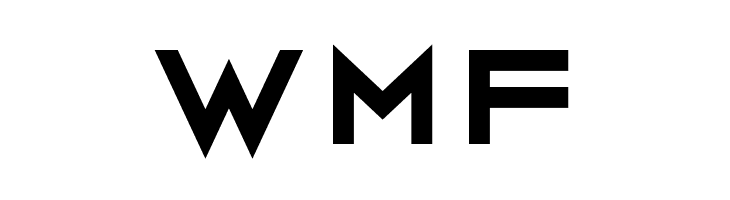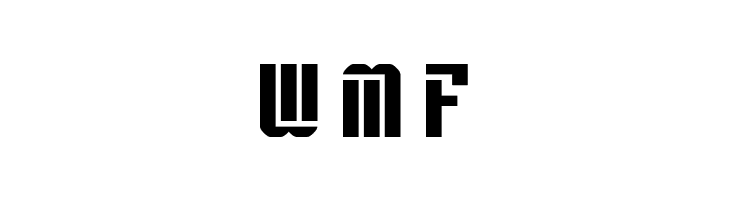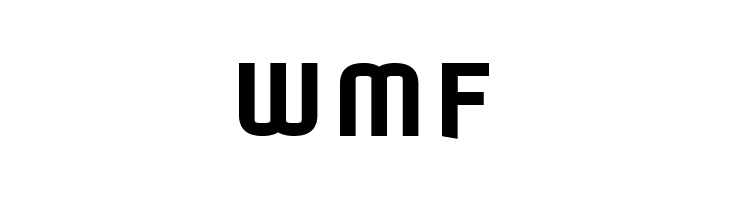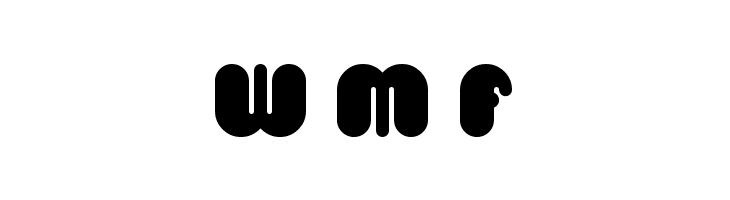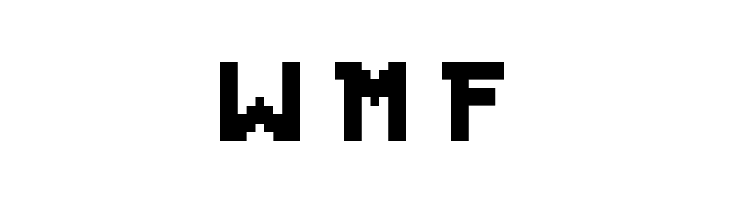
( AZCRTV Studio - Abdul Azis - www.instagram.com/creativitaz/ )
A bold, brush script font with a textured, hand-painted look.
( Ahmed Crvst )
A geometric, angular font with a modern and futuristic design.
( Artspace Design - Mas Mujib - www.behance.net/artspacedec21c )
A playful and dynamic script font with fluid, connected letterforms.
( Artspace Design - Mas Mujib - www.behance.net/artspacedec21c )
A bold, modern sans-serif font with geometric lines and uniform thickness.
( Artspace Design - Mas Mujib - www.behance.net/artspacedec21c )
A geometric and modern typeface with clean lines and angular shapes.
( Artspace Design - Mas Mujib - www.behance.net/artspacedec21c )
A bold, modern font with geometric structure and high contrast.
( Azetype86 - Muh. Aswar - creativemarket.com/Azetmedia )
A dynamic, expressive handwritten font with fluid strokes.
( Azetype86 - Muh. Aswar - creativemarket.com/Azetmedia )
A graceful monoline script font with smooth, flowing lines and elegant curves.
( Barwuah Anam )
A sleek, modern geometric font with consistent line weight and minimalist design.
( Chequered Ink - chequered.ink/ )
A bold, geometric font with a modern and industrial aesthetic.
( Chequered Ink - chequered.ink/ )
A bold, angular font with a geometric and modern design.
( Chequered Ink - chequered.ink/ )
A bold, geometric font with angular shapes and a strong, commanding presence.
( Chequered Ink - chequered.ink/ )
A bold, geometric font with a futuristic and digital aesthetic.
( Chequered Ink - chequered.ink/ )
A bold, geometric stencil font with an industrial and modern aesthetic.
( Chequered Ink - chequered.ink/ )
A bold, angular font with a futuristic and aggressive design.
( Chequered Ink - chequered.ink/ )
A bold, geometric font with strong, angular lines and uniform stroke widths.
( Chequered Ink - chequered.ink/ )
A bold, geometric font with sharp angles and a blocky design.
( Chequered Ink - chequered.ink/ )
A futuristic, geometric font with rounded edges and a sci-fi aesthetic.
( Chequered Ink - chequered.ink/ )
A bold, geometric font with a modern and impactful design.